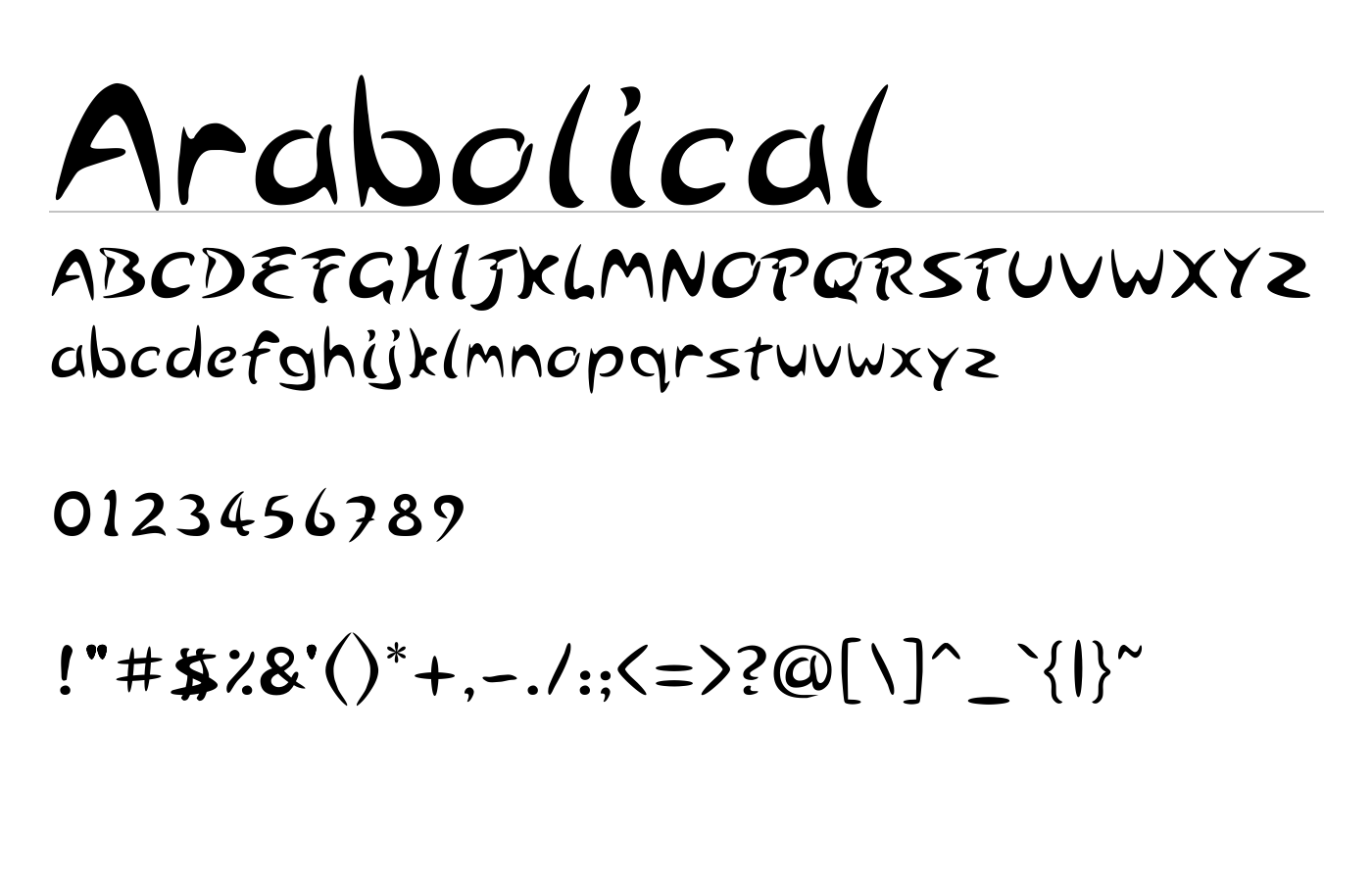
Arabolical is a playful and expressive sans serif font with a hand-drawn, brush-like style that combines lively curves and varied stroke widths, giving it an artistic, slightly exotic feel. Its unique letterforms and slightly irregular shapes make it ideal for creative projects, logos, and headlines that seek a distinctive and informal personality with a touch of cultural flair. This font works best in contexts where a spirited, eye-catching look is desired, adding character without sacrificing readability.
Arabolical Font
About Arabolical Font
| Font family | Arabolical Font |
| Designer | BenTagain |